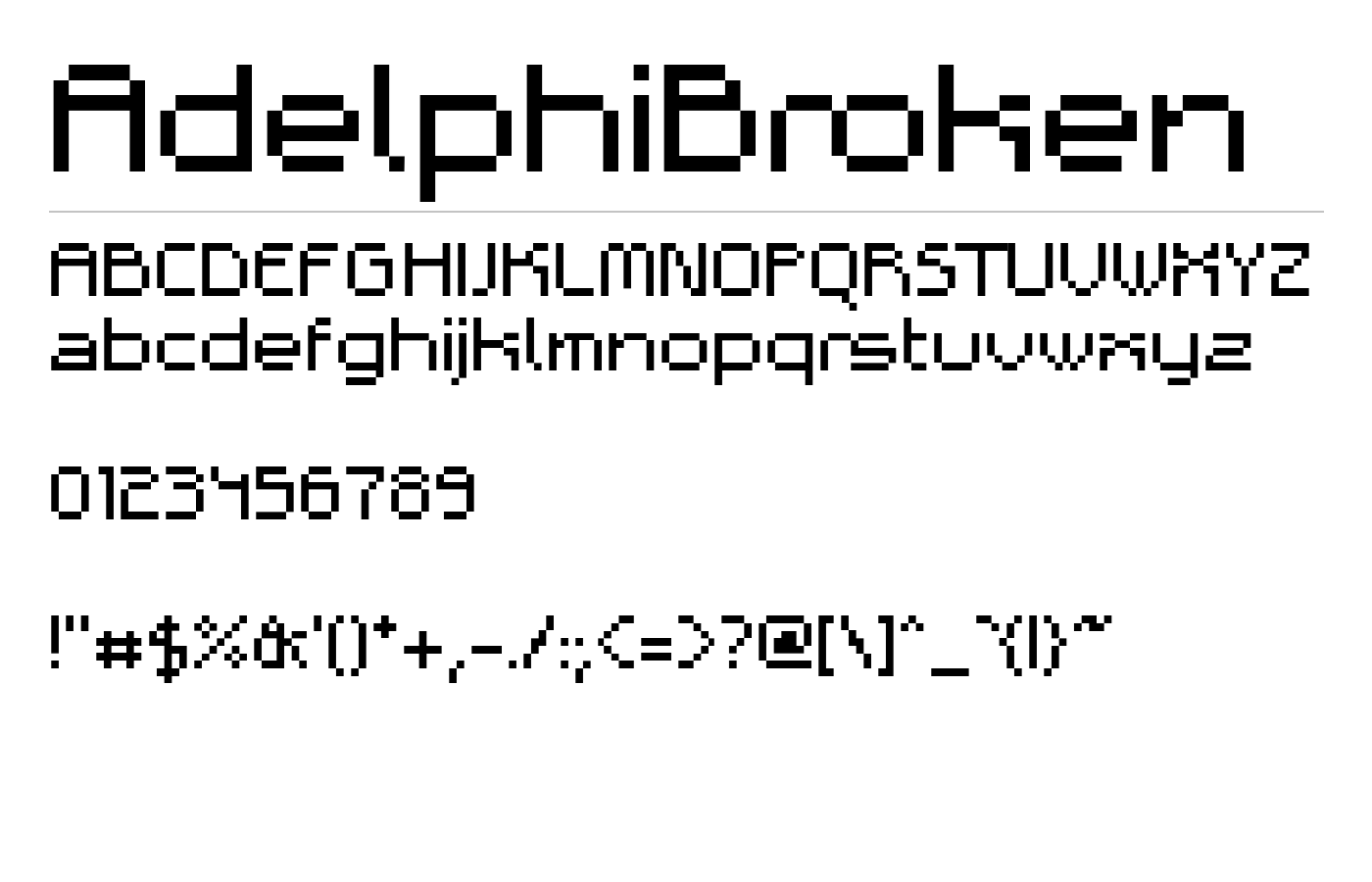
AdelphiBroken is a geometric, pixel-inspired sans serif font characterized by its blocky, angular letterforms and consistent stroke weight. With a modern, technical feel, it features high x-height and monospaced-like spacing that gives it a digital, retro-futuristic vibe. This font works well in tech branding, video game design, and digital interfaces where a strong, pixelated aesthetic is desired.
AdelphiBroken Font
About AdelphiBroken Font